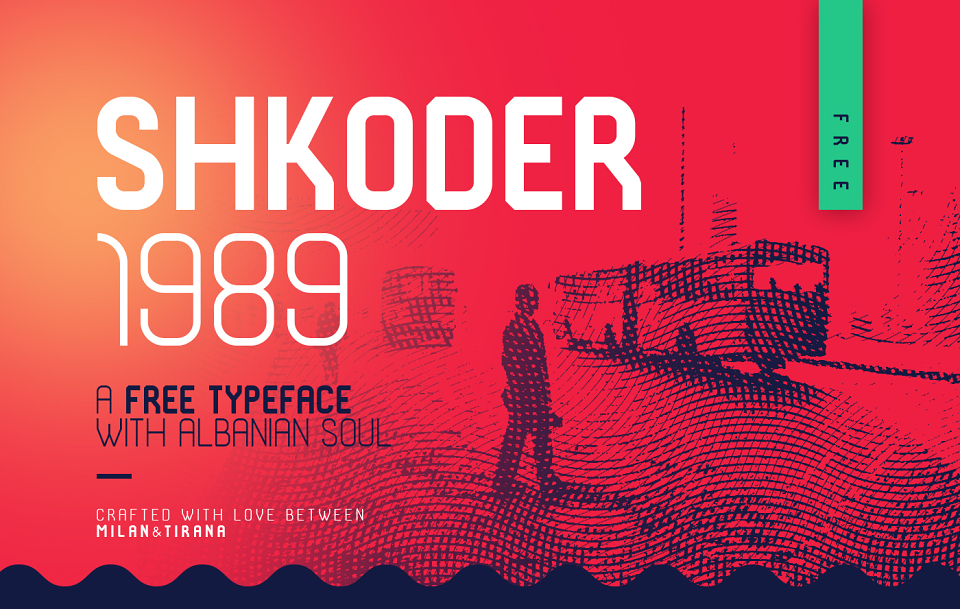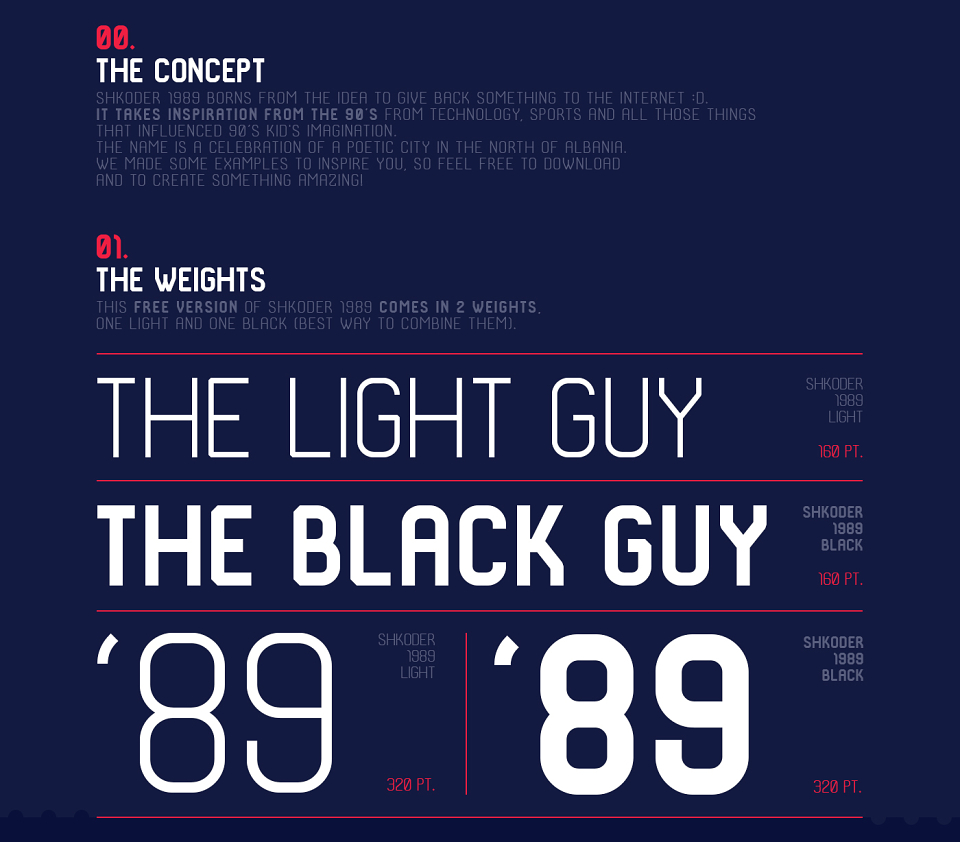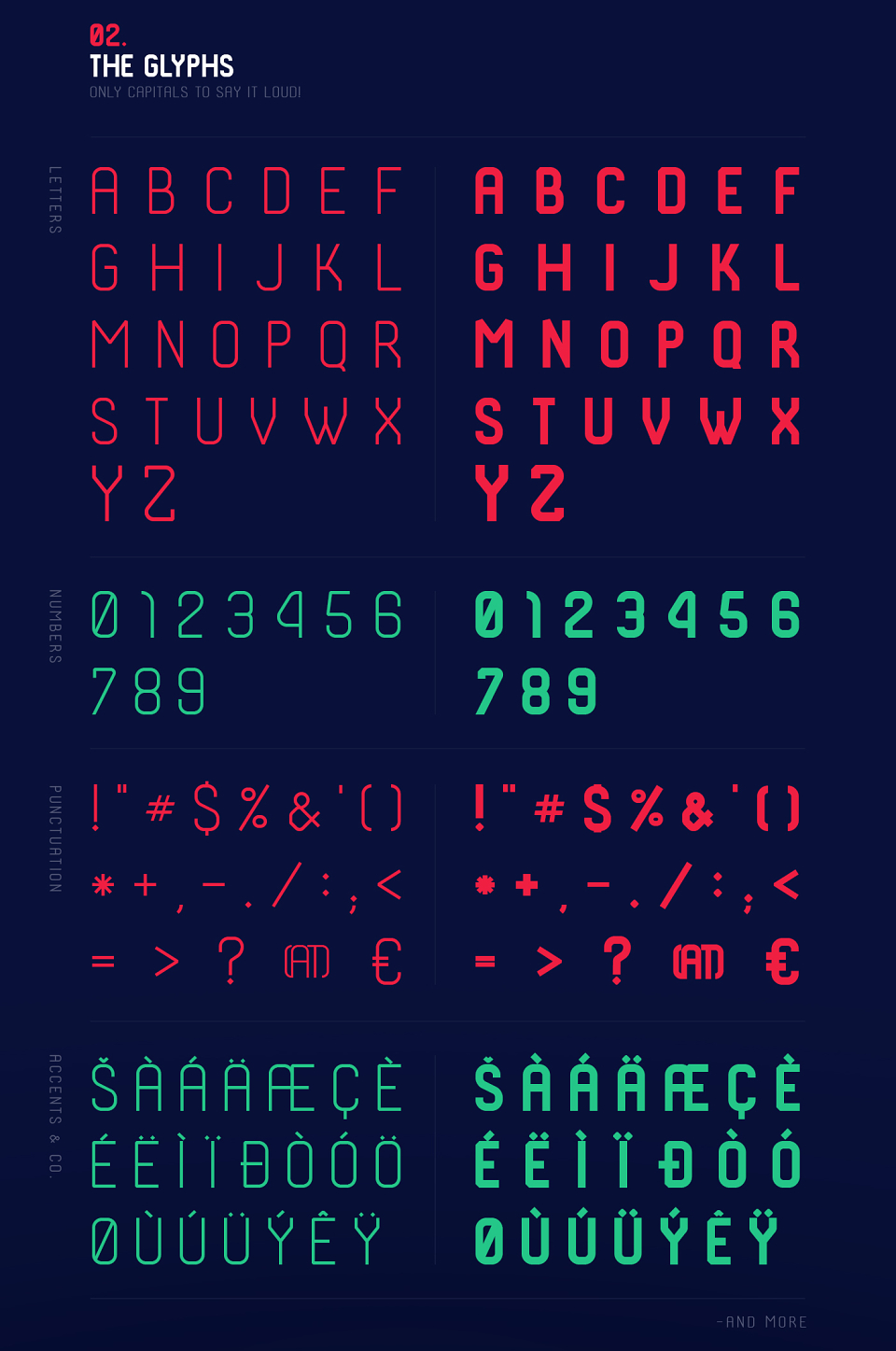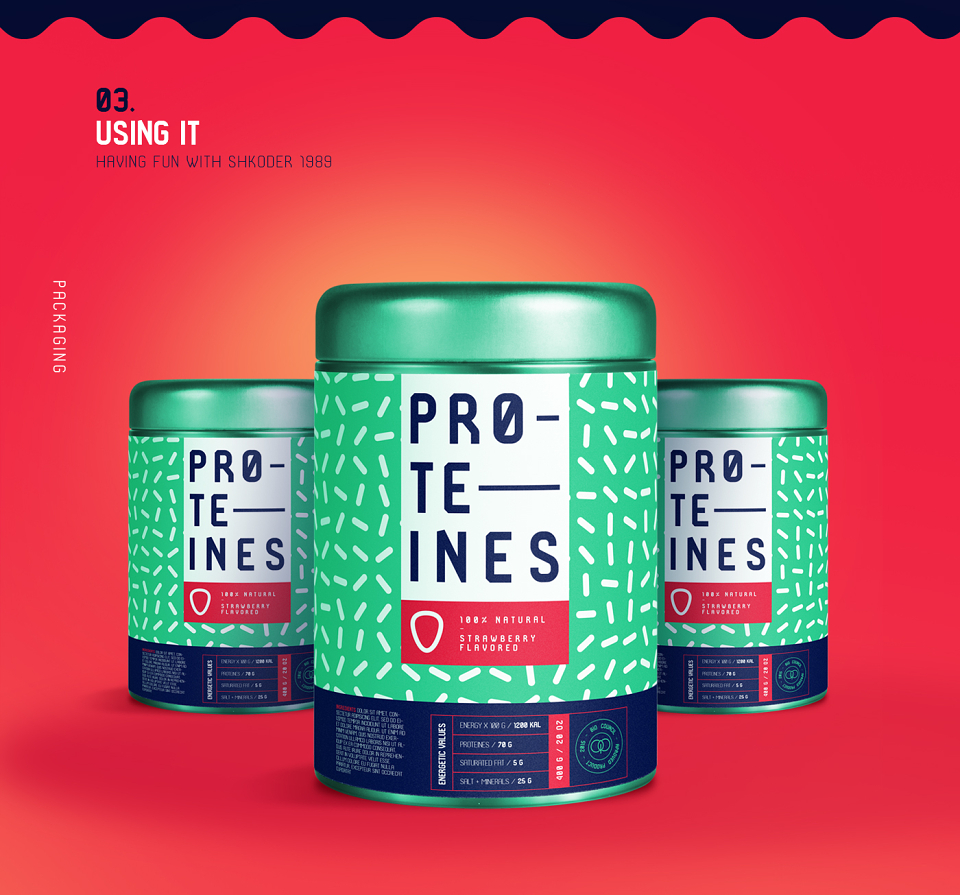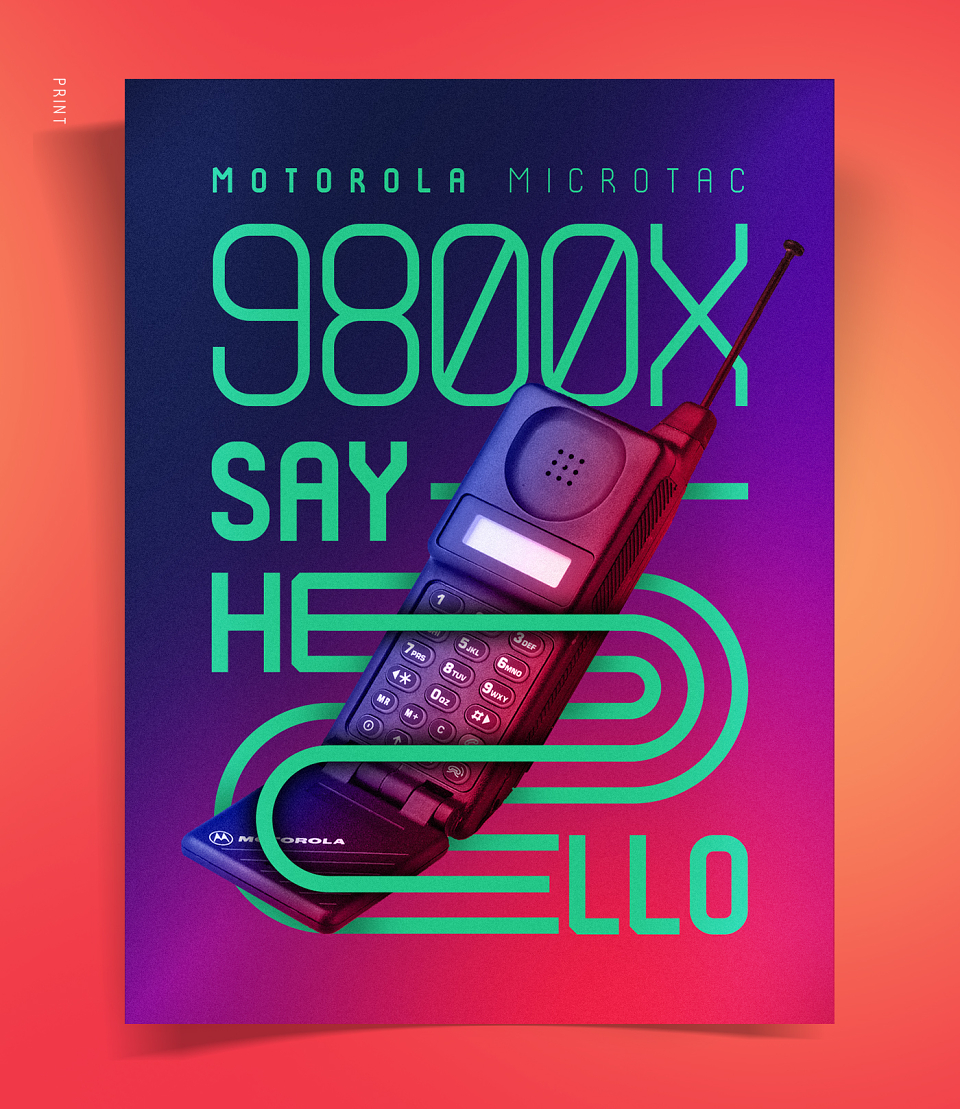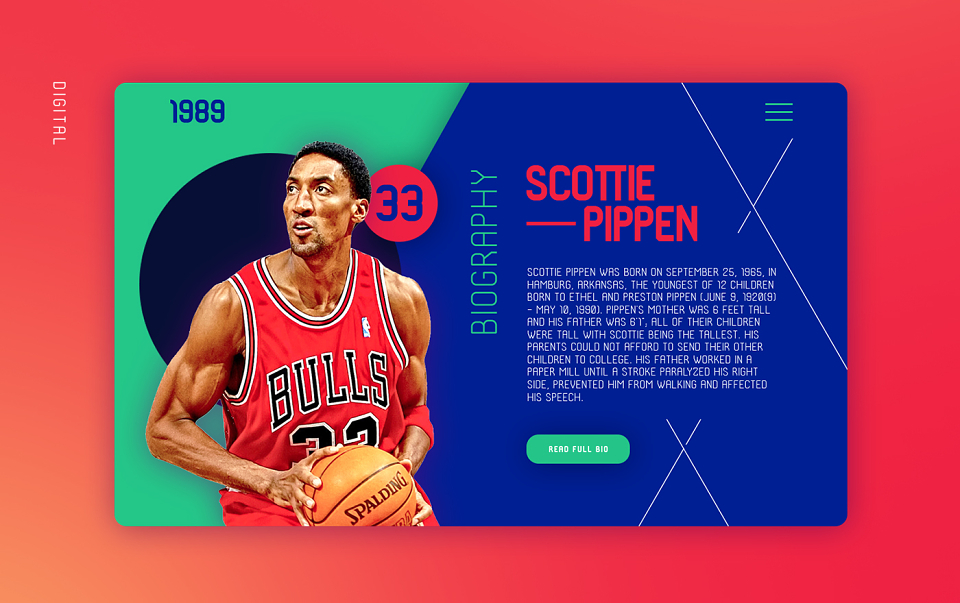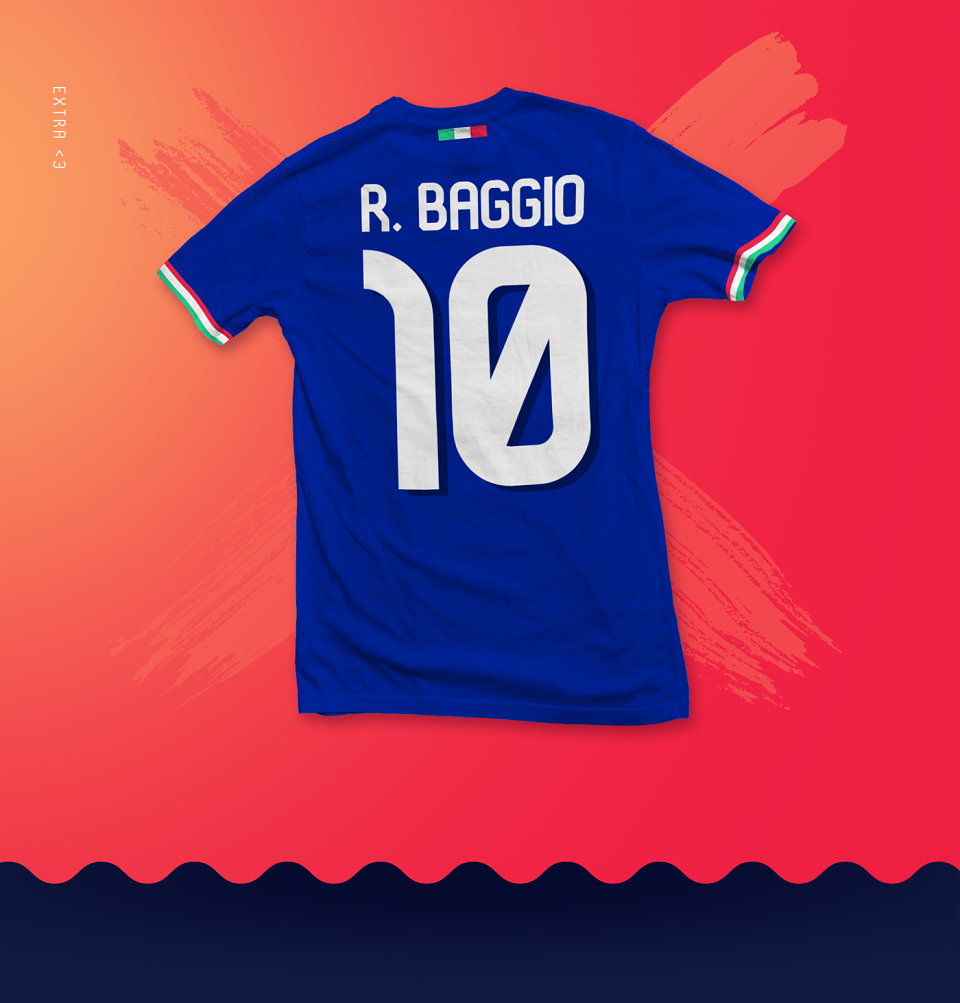
Shkoder 1989 is a "techy" and "sporty" font, inspired by the 90's. It's projected to work well for print and digital combining his two weights. All caps and a lot of glyphs to give a 90's feel to your projects! We had fun creating it and hope you will have using it!
SHKODER 1989 – FREE TYPEFACE